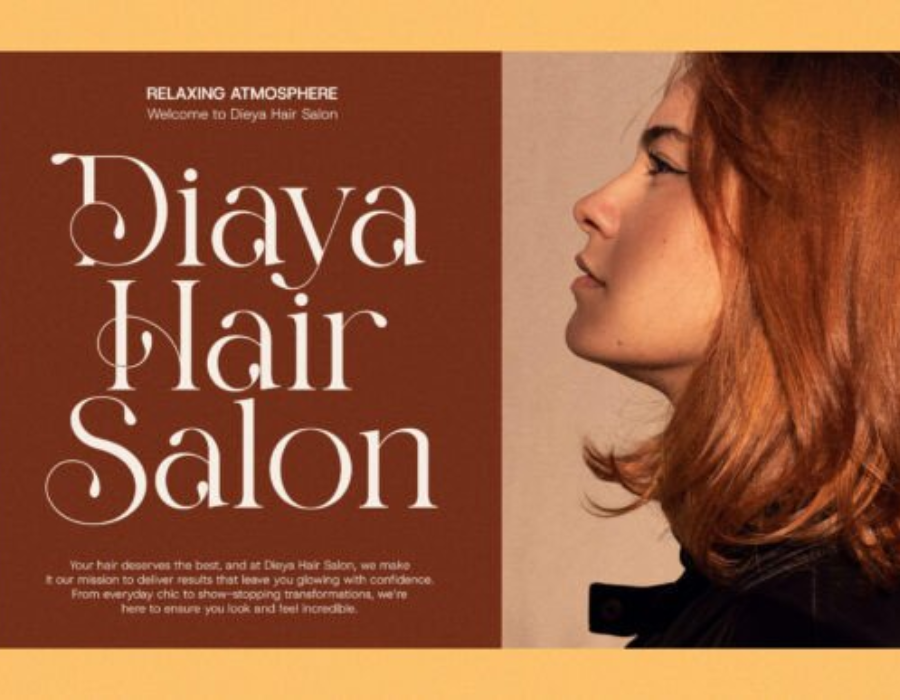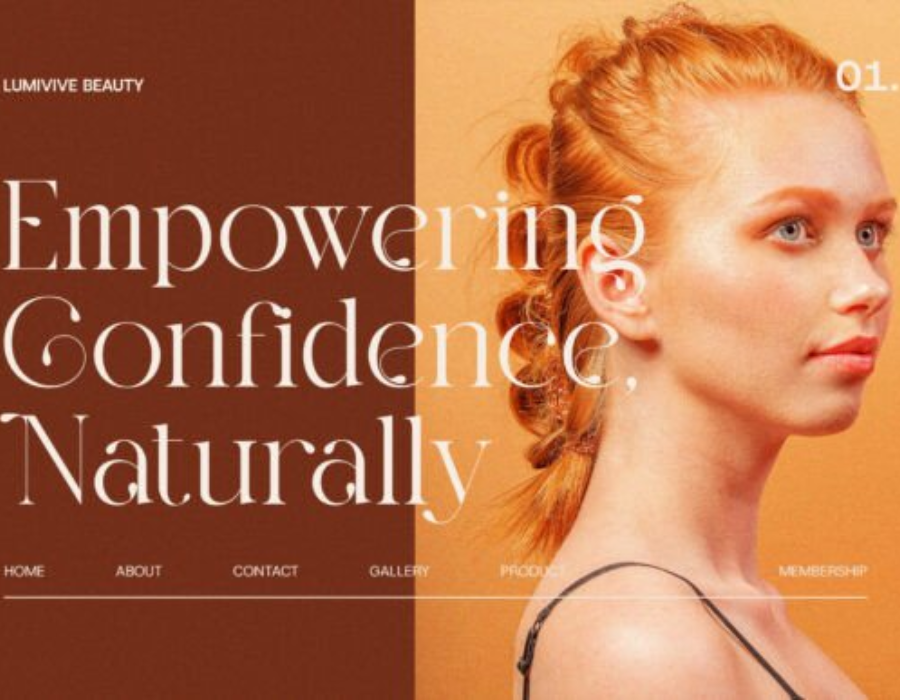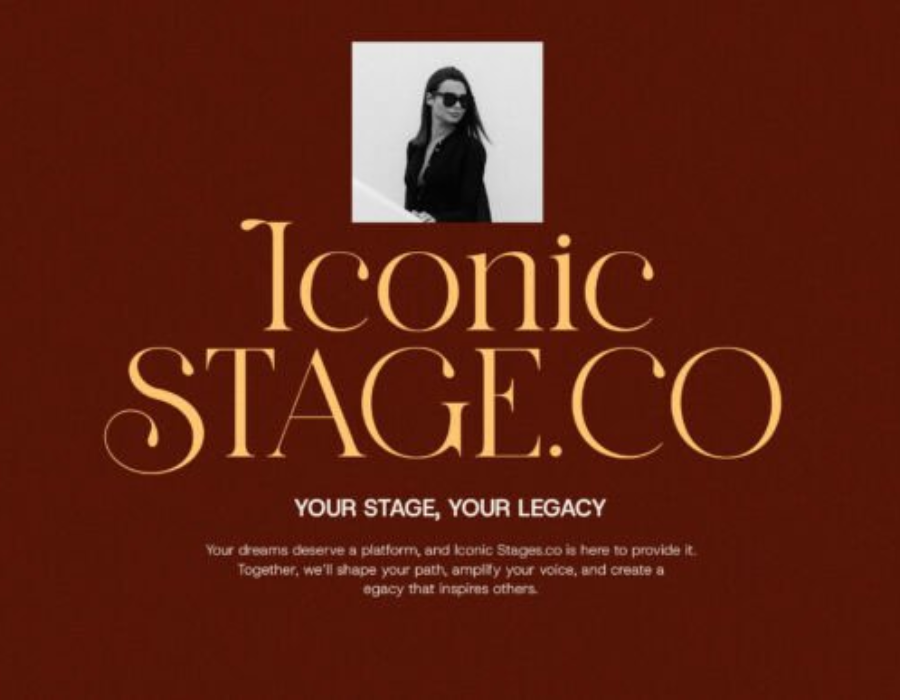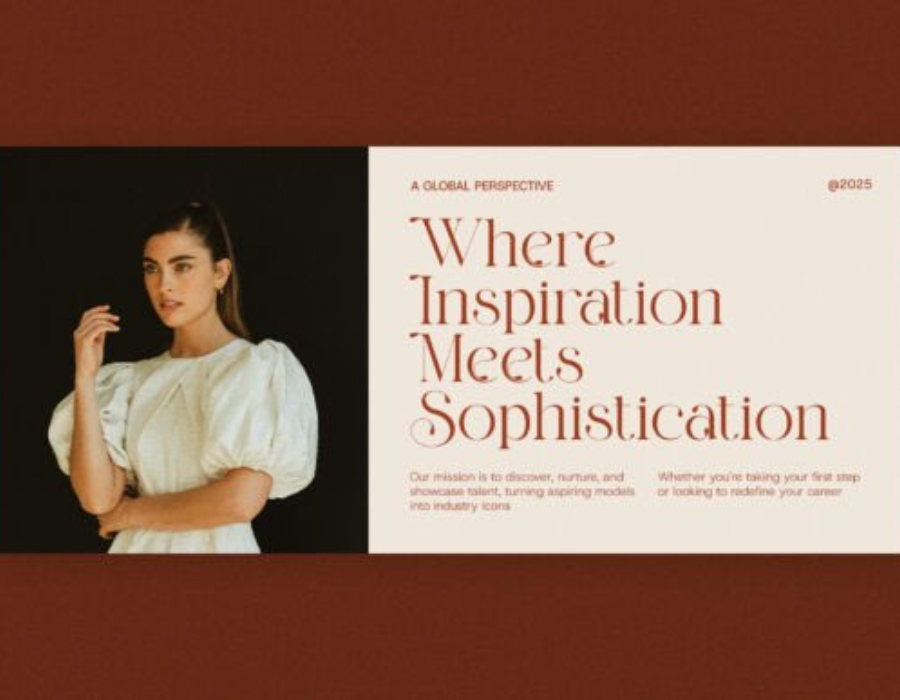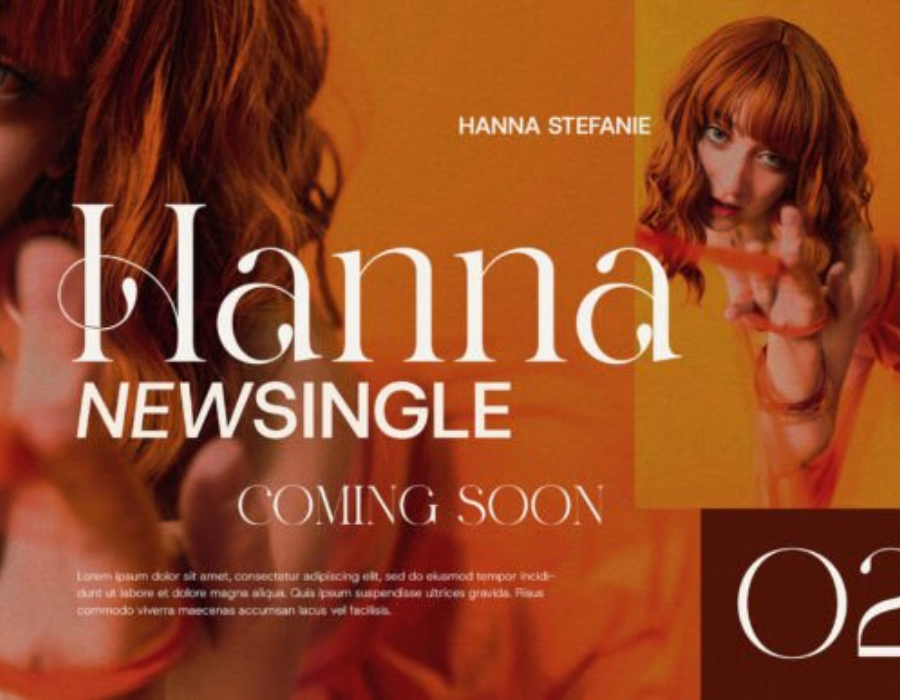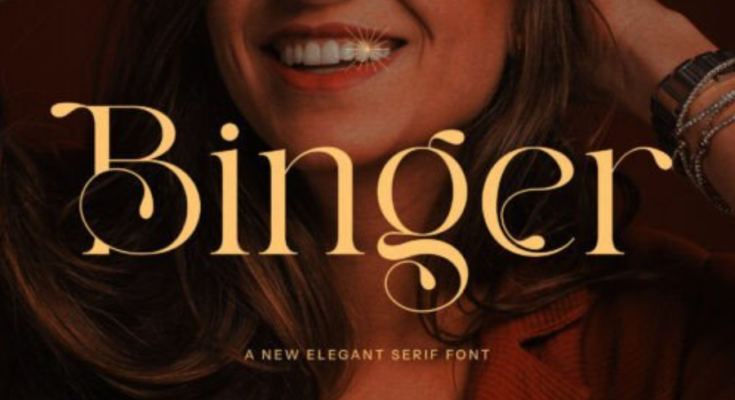
Binger Font: A Modern Typeface Blending Elegance, Versatility, and Creative Function
In the ever-evolving world of visual communication, typography plays a crucial role in shaping how audiences perceive messages, brands, and digital experiences. Among the expanding library of contemporary typefaces, Binger Font has emerged as a distinct and increasingly popular choice for designers seeking a blend of modern sophistication and bold personality. While not as universally known as classics like Helvetica, Garamond, or Futura, Binger Font has gained traction in digital design communities for its stylish aesthetic, functional versatility, and growing adaptability across creative projects. This article offers an in-depth look at Binger Font—its characteristics, applications, benefits, and design potential.
Aesthetic Characteristics of Binger Font
Binger Font is best described as a clean, modern display typeface with expressive curves and strong geometric influence. While the specific style can vary depending on the version or designer source (since Binger has been adapted and reinterpreted by several typographers), most iterations share three defining features:
1. Bold, Attention-Grabbing Letterforms
Binger typically features thick strokes and high contrast, making it a natural fit for display contexts: headlines, posters, product branding, and social media visuals. The bold structure allows it to stand out even in busy compositions or layered designs.
2. Rounded Geometry with Subtle Angularity
Unlike rigid geometric fonts, Binger incorporates softly rounded terminals and gentle curvature, striking a balance between friendliness and professionalism. This blend gives the typeface a unique “approachable modernism” that works well in lifestyle, fashion, and tech branding.
3. Stylish Artistic Touches
Many versions of Binger Font include distinctive design flourishes—elongated strokes, creative crossbars, or slight asymmetry. These elements give it a hand-crafted energy while keeping the structure polished enough for commercial use.
Why Designers Choose Binger Font
The rising popularity of Binger Font can be attributed to several practical and creative advantages.
A. High Versatility Across Mediums
Whether used in print or digital formats, Binger maintains excellent readability at large sizes. Designers frequently rely on it for:
-
Logo design
-
Social media campaigns
-
Editorial headers
-
Packaging graphics
-
Event posters
-
Minimalist website hero text
Its strong shape holds visual weight without overwhelming supporting elements.
B. A Contemporary Aesthetic That Fits Current Trends
In recent years, design trends have leaned toward minimalism paired with bold typography, a style widely seen in fashion branding, tech startups, and influencer marketing. Binger fits this perfectly: clean, confident, and modern without being sterile.
C. Distinct Personality Without Losing Professionalism
Unlike overly stylized display fonts, Binger balances uniqueness with functionality. This makes it ideal for brands wanting an identifiable look while maintaining credibility. The font feels modern yet timeless, charming yet structured—a difficult combination to achieve.
D. Support for Creative Experimentation
Many designers enjoy Binger because it responds well to:
-
Negative-space techniques
-
Layered color effects
-
Gradient overlays
-
Outline/offset styles
-
Vertical or wide tracking layouts
Its structural geometry withstands modification, allowing designers to push creative boundaries.
Applications: Where Binger Font Works Best
Although Binger is flexible, certain types of projects particularly benefit from its strengths.
1. Branding and Logo Design
Binger is bold enough to anchor a brand identity. Its curves and angles make logos memorable while remaining legible across digital and physical platforms. Fashion, lifestyle, boutique, and tech brands especially gravitate toward the font for its stylish presence.
2. Social Media and Advertising
In fast-scrolling social feeds, brands have only seconds to capture attention. Binger’s strong shapes command the screen, making promotional graphics, quotes, announcements, and product showcases instantly readable.
3. Print Media
From magazine covers to event flyers, Binger’s thick strokes and crisp edges reproduce cleanly in print. High-contrast layouts and minimalist poster designs particularly benefit from its punchy visual impact.
4. UI/UX and Web Hero Sections
Although not typically used for paragraphs or small UI text, Binger shines in large hero headers, landing pages, and call-to-action graphics. Its visual strength can set the tone for an entire website.
Pairing Binger Font with Other Typefaces
Effective typography often involves combining fonts that contrast yet complement each other. Because Binger has a bold display profile, it pairs well with simpler, more neutral text fonts.
Best Serif Pairings
Classic serif fonts such as:
-
Merriweather
Conclusion
Binger Font has carved out a niche in the contemporary design world by offering a compelling mix of style, strength, and versatility. Whether employed in branding, social media graphics, packaging, or editorial layouts, it brings a bold yet refined aesthetic that feels perfectly aligned with current design sensibilities. For designers seeking a modern typeface with personality and flexibility, Binger Font is a powerful tool capable of elevating visual storytelling across a wide spectrum of creative applications.